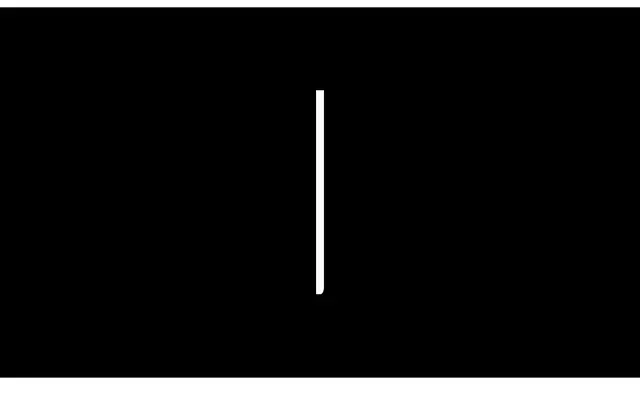
Fit
David Jonathan Ross · 2017
A variable-width display typeface built around a single obsessive principle: filling any given space with maximum visual mass.
Designed by David Jonathan Ross and first released in 2017, Fit operates across an enormous width axis spanning ten named styles from Skyline to Ultra Extended. Its defining structural logic anchors the white space within and between letters as a constant, regardless of width, so the letterforms fuse into a dense, interlocking grid of black and white. The family has since expanded to cover Hebrew, Armenian, Devanagari, Tamil, Kannada and Arabic, each script adapted by a specialist designer working within Fit's strict modular grammar.
Fit is a hyper-stylised display sans built around an extreme variable width axis, ranging from skyline-narrow to ultra-extended. Its primary purpose is filling space with maximum visual impact rather than text legibility.